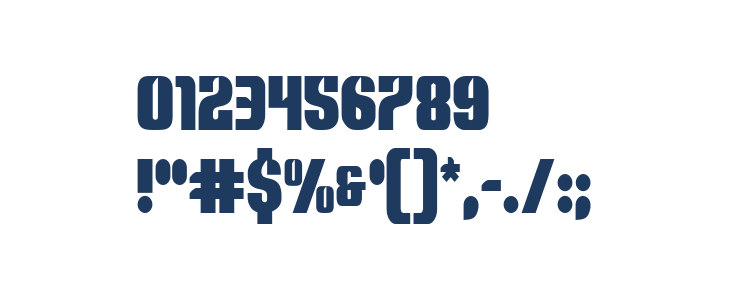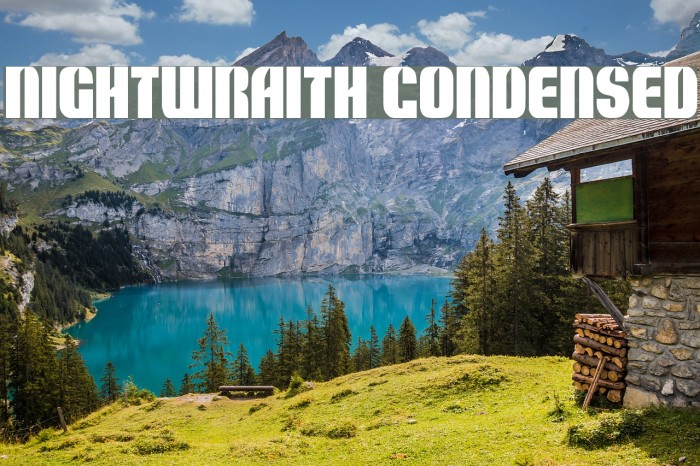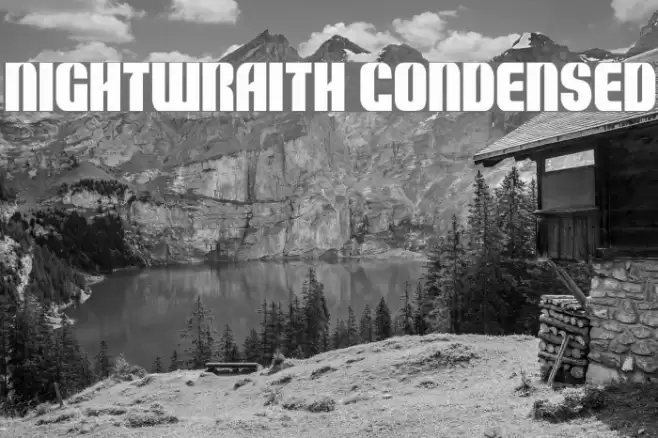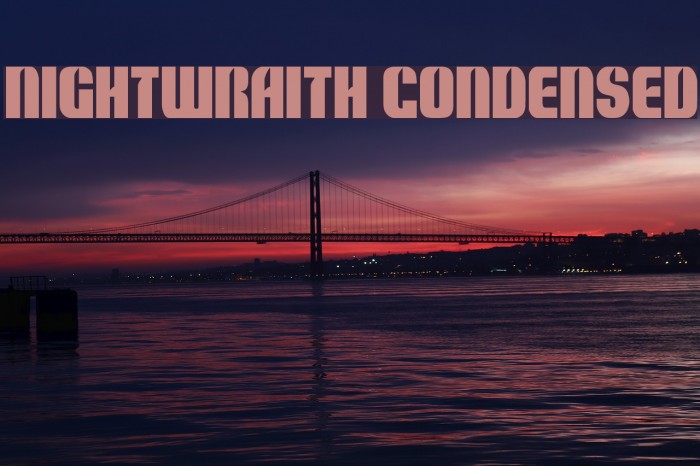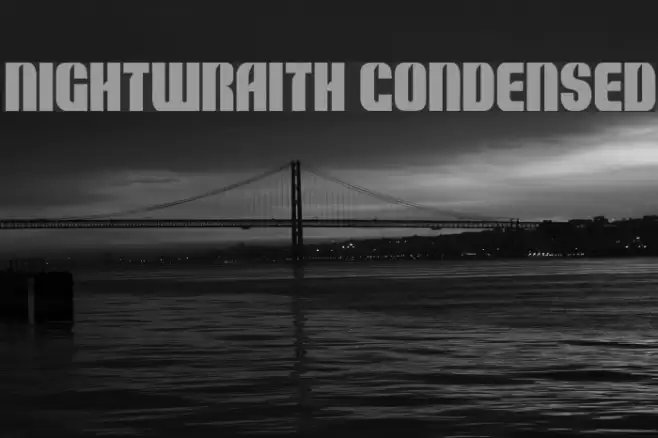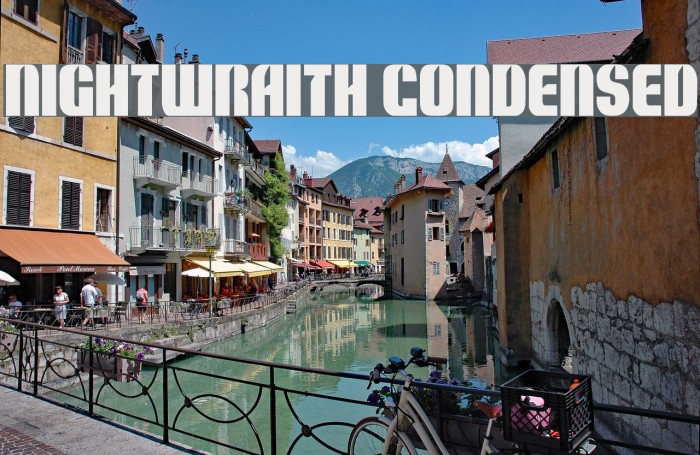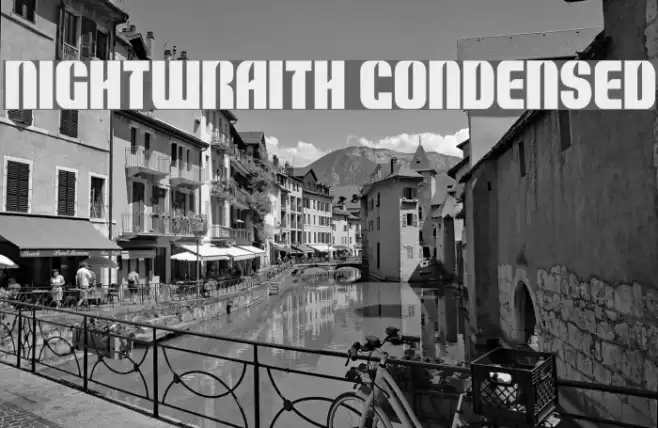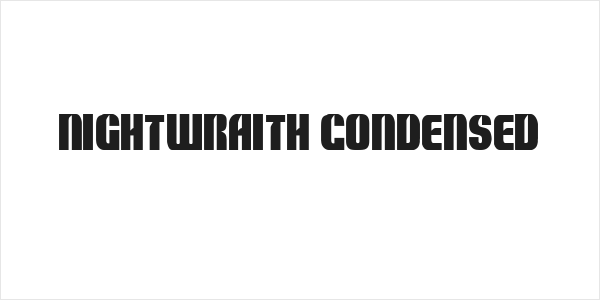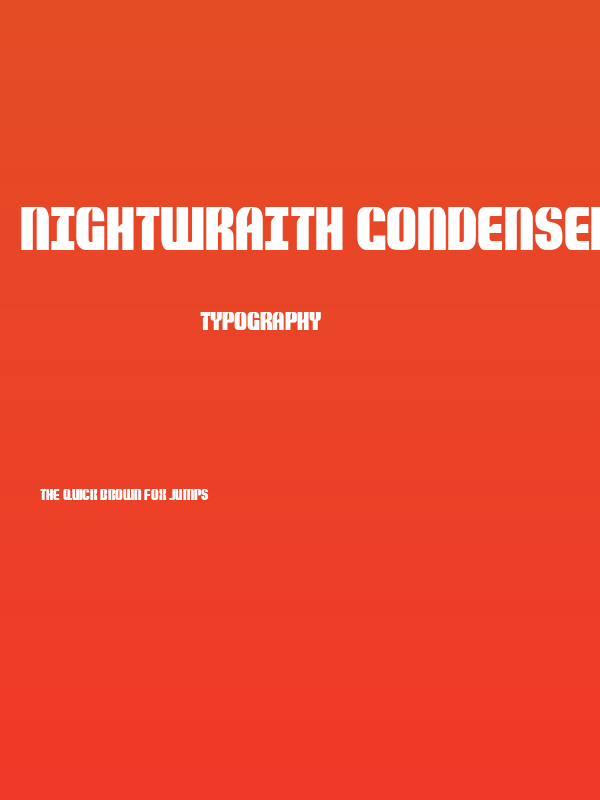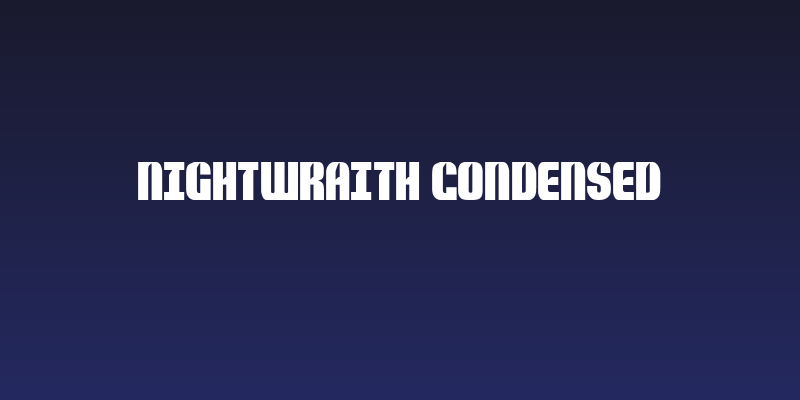
Nightwraith Condensed Font
Nightwraith Condensed Description
This font features a bold and striking design with a condensed structure, making it ideal for impactful headlines and attention-grabbing displays. The characters are uniformly thick, with minimal contrast in stroke width, giving it a robust and modern appearance. The geometric shapes and sharp edges contribute to its contemporary style, while the condensed width allows for efficient use of space. The uppercase and lowercase letters maintain a consistent height, enhancing readability and uniformity. The numerals and special characters are designed to match the boldness and style of the alphabet, ensuring a cohesive look across all text elements.
| Proposed Projects | Ideal for posters, branding, logos, and any project requiring a strong visual impact. |